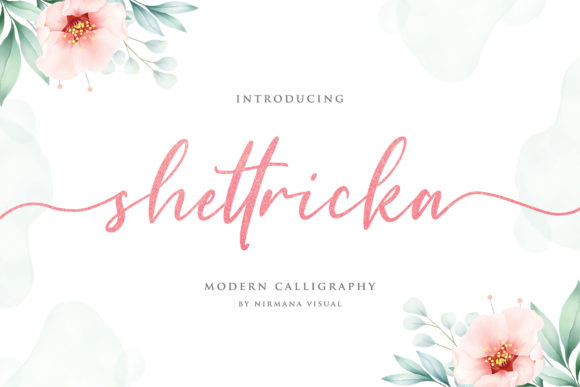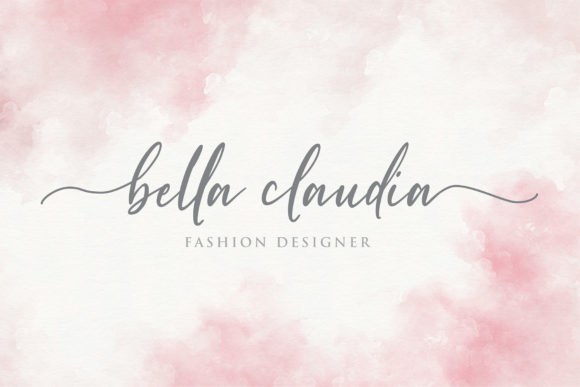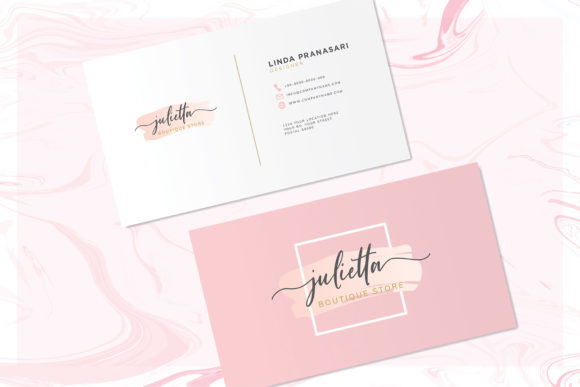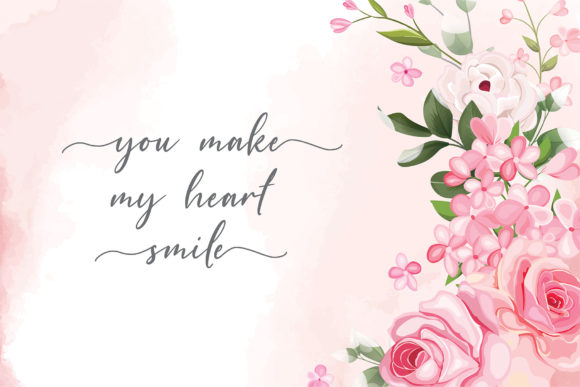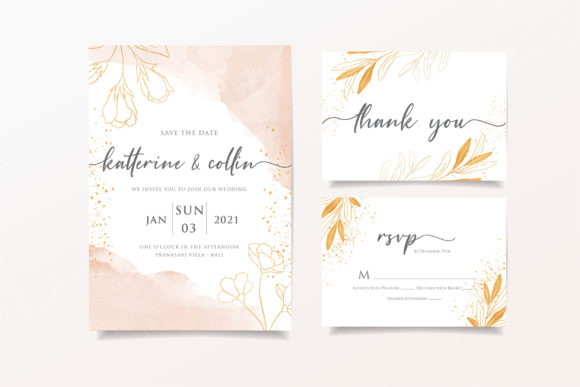
Shettricka Font
About Shettricka Font
Shettricka is a beautiful script font. It is a beautiful combination of timeless elegance and authentic calligraphy, and it features amazing swashes. Fall in love with its authentic feel and use it to create gorgeous wedding invitations, beautiful stationary art, eye-catching social media posts, and cute greeting cards.